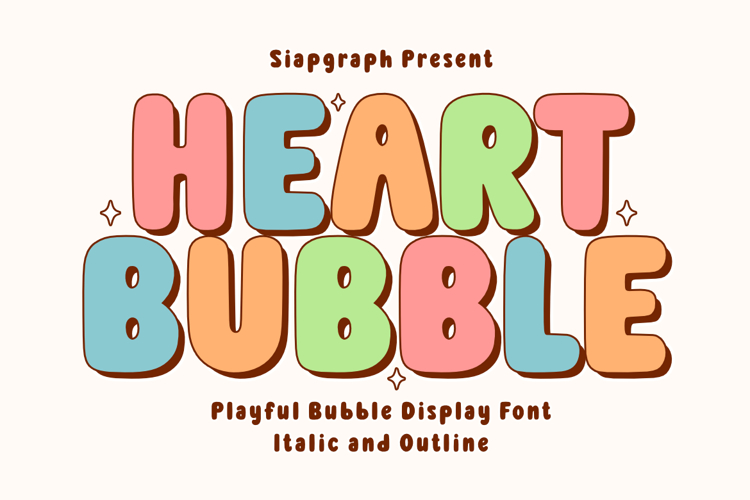
Bring your ideas to life with Heart Bubble, a charming and playful bubble display font that exudes playfulness! Its soft curves and bold appearance are perfect for creating eye-catching headlines, posters, social media graphics, and branding. Add a dreamy touch to your designs with this delightful font that’s both fun and versatile.